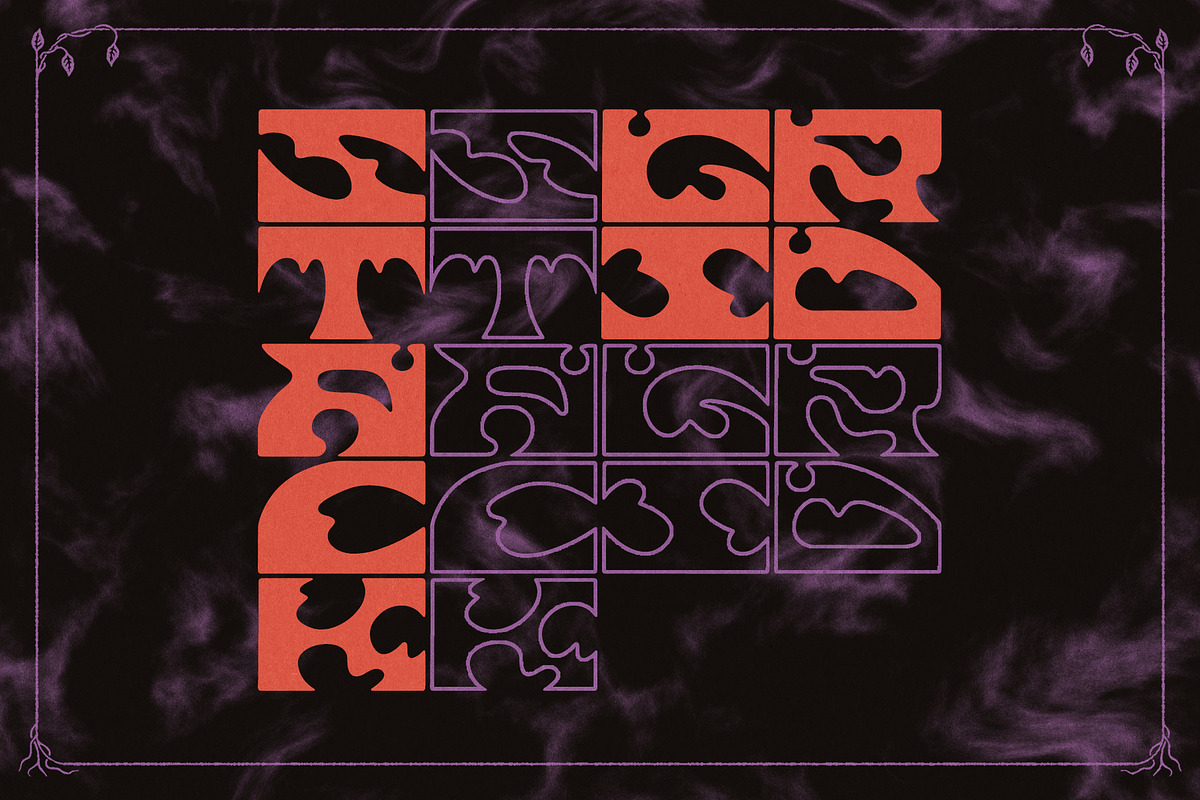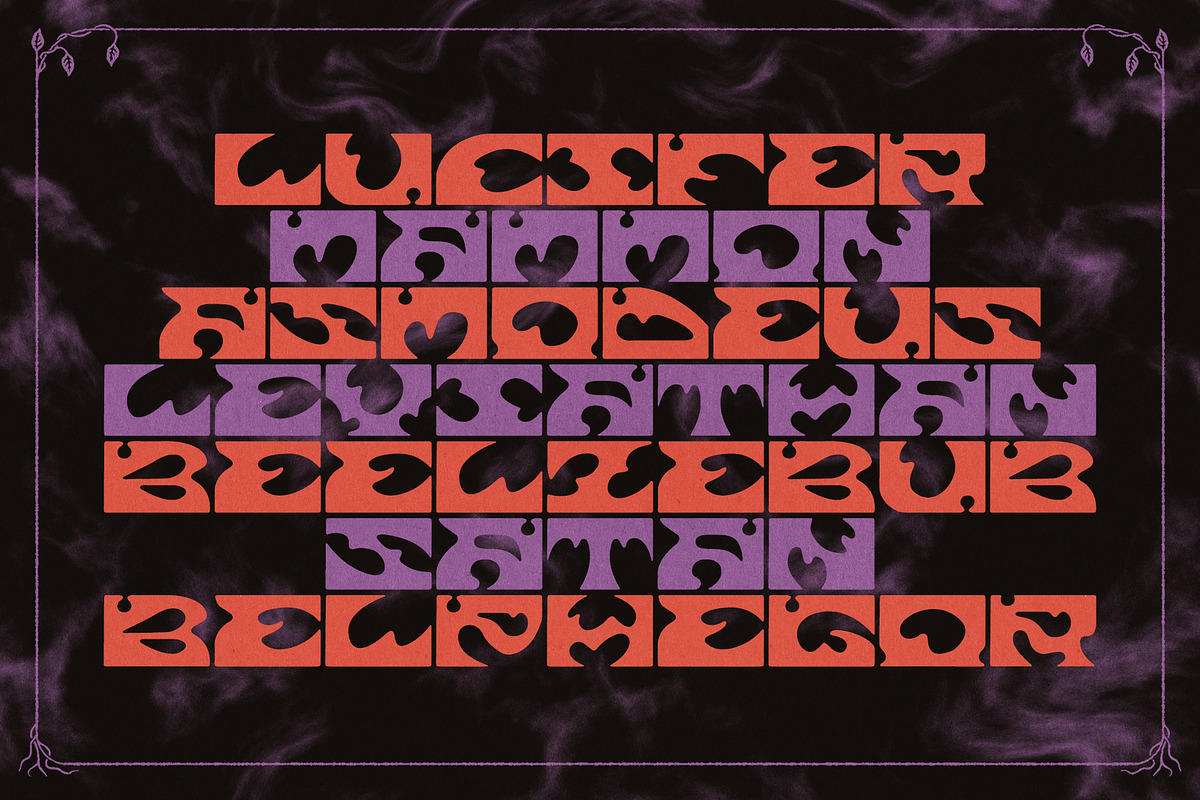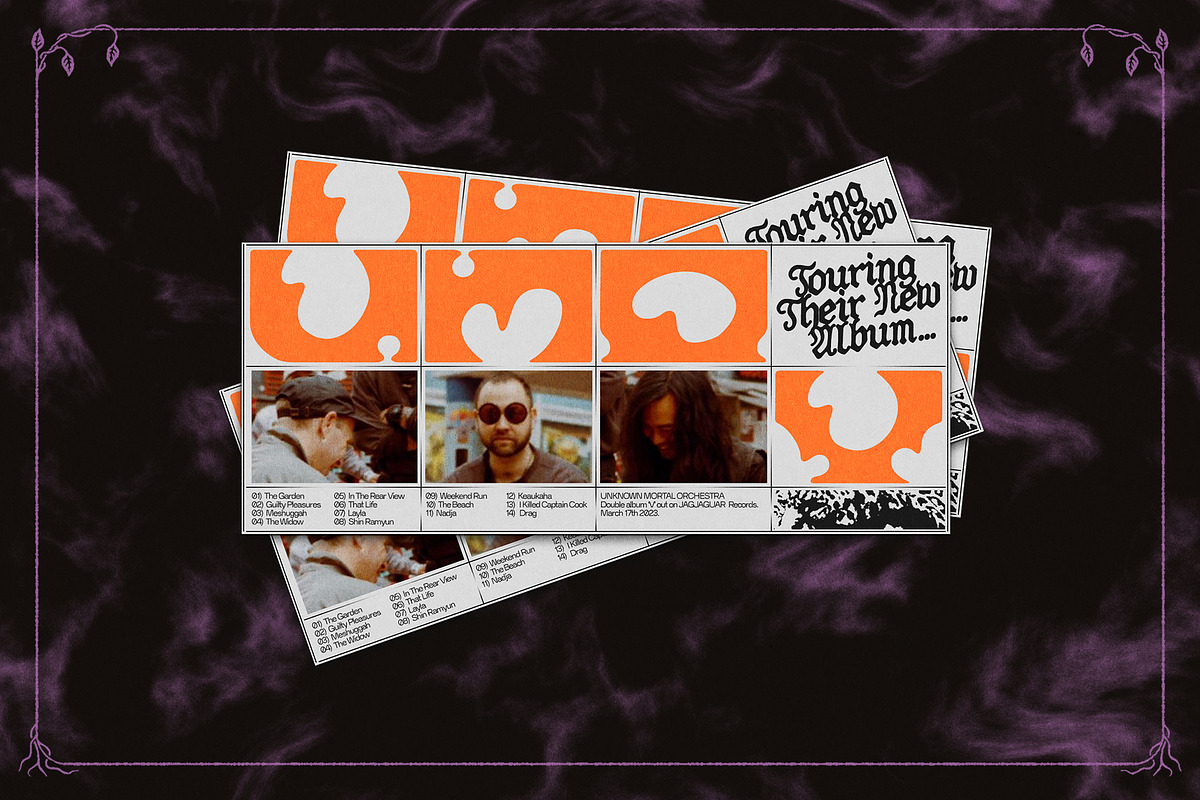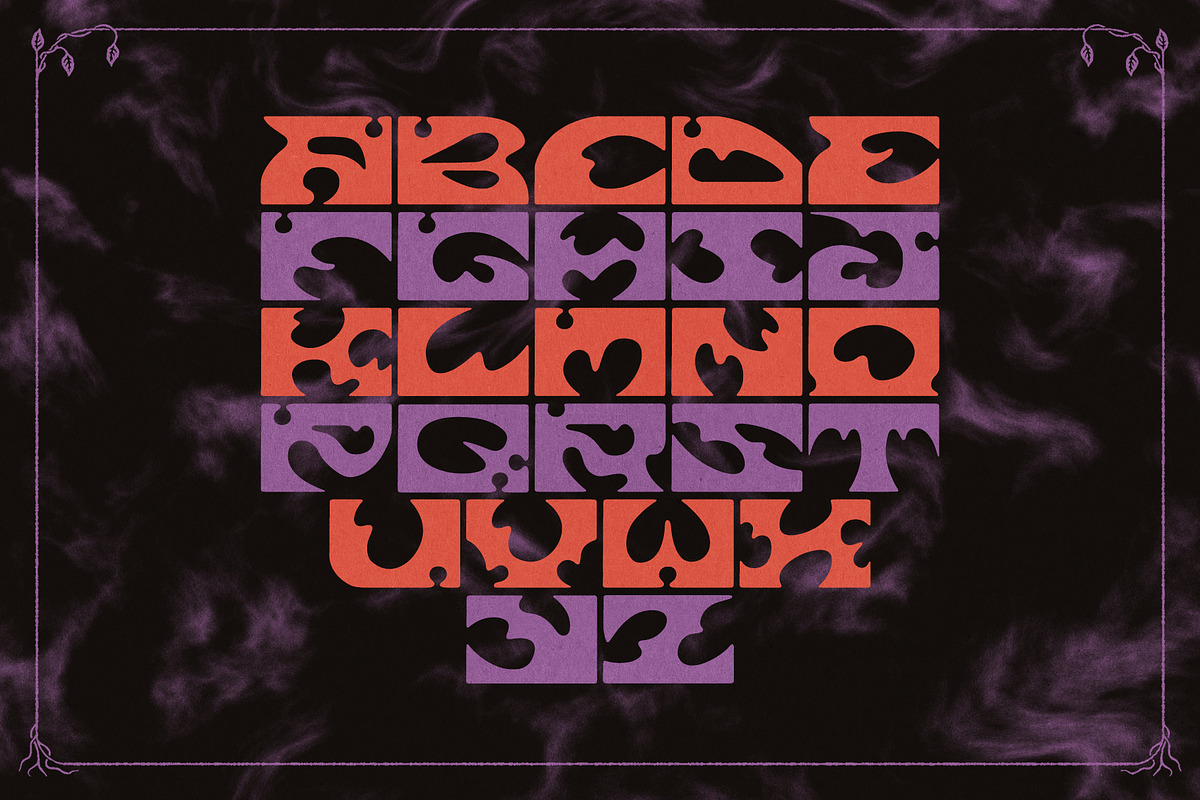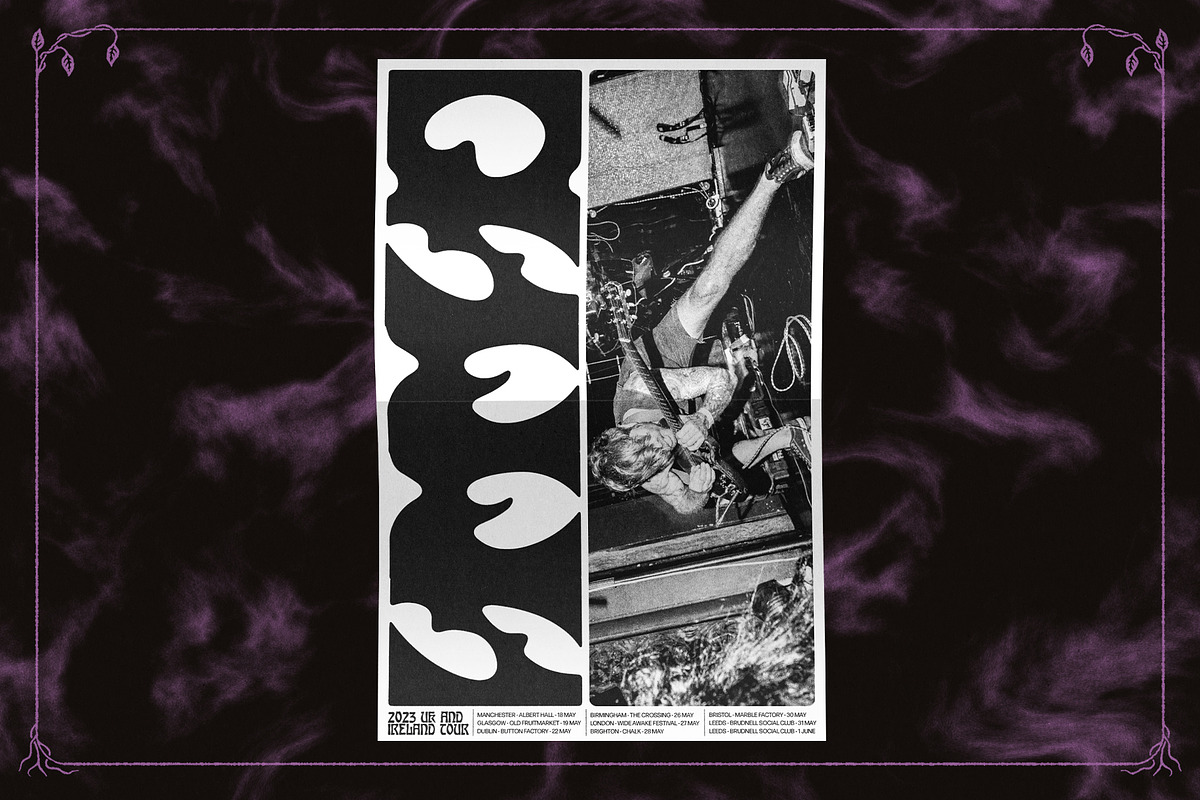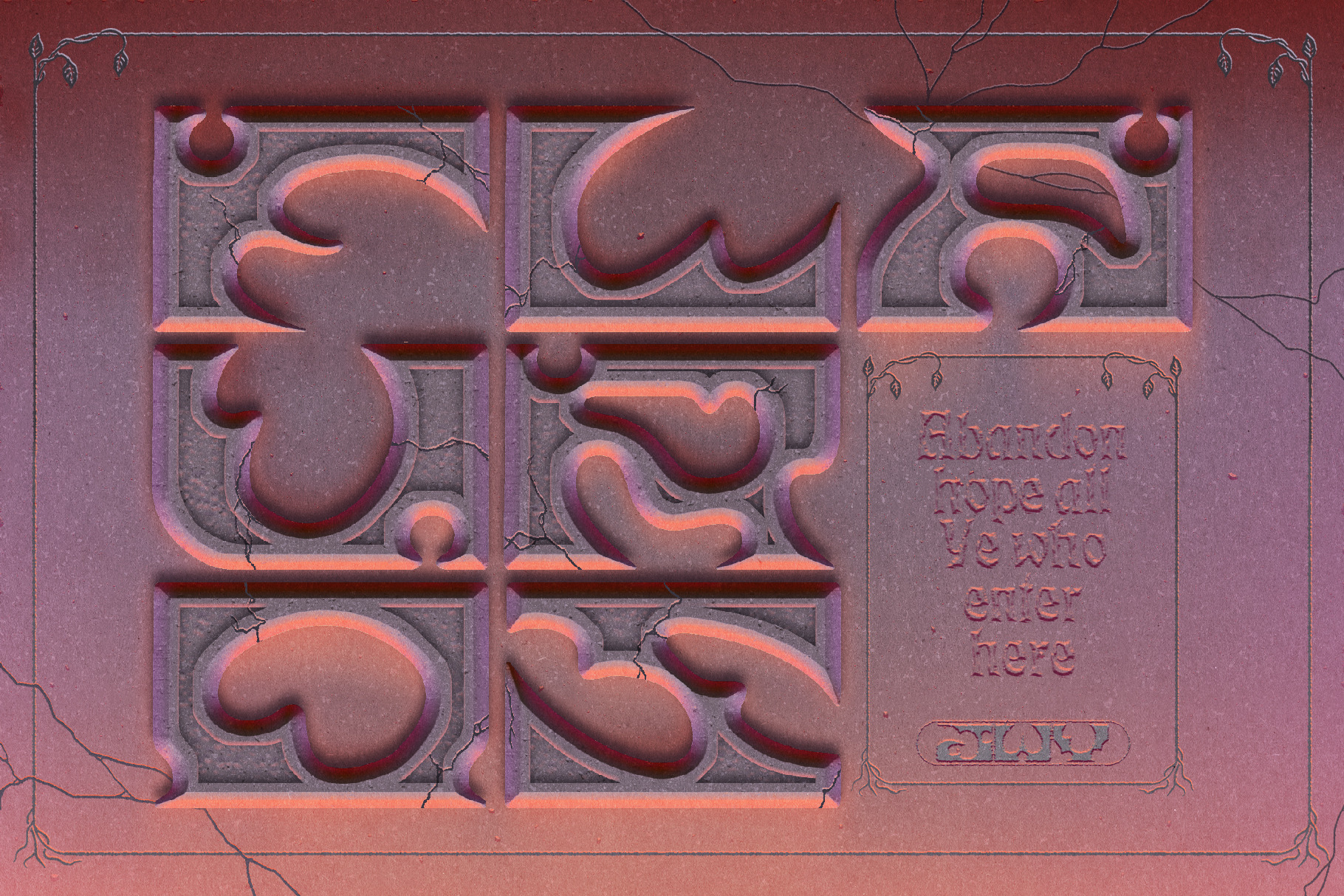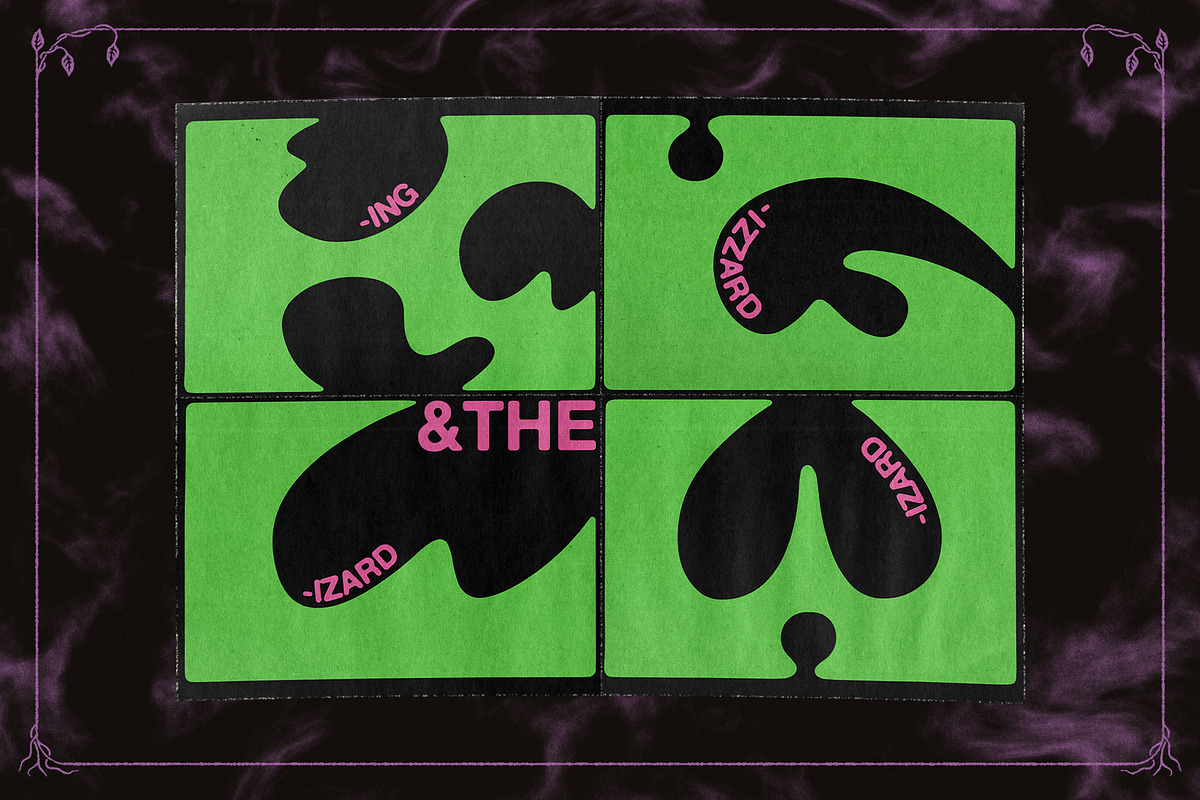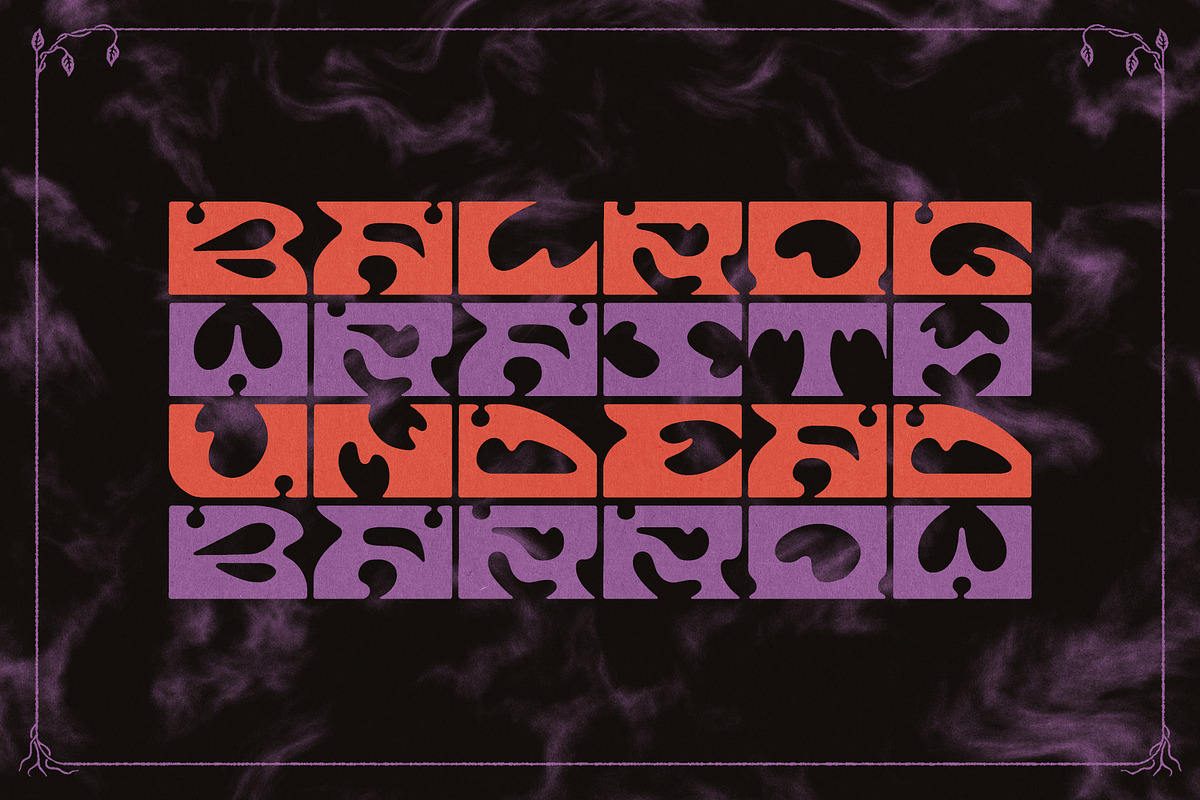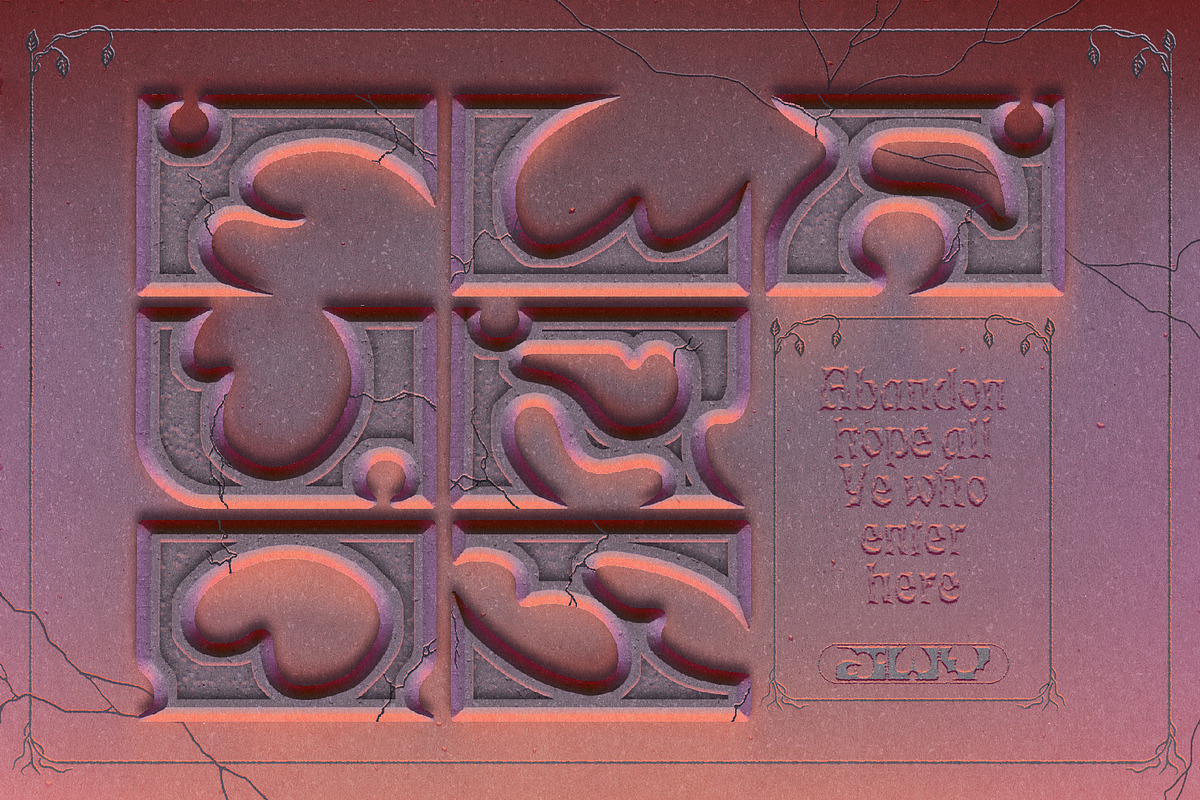
JWV - FLAUROS - Psych display font
FLAUROS is a sinister psychedelic typeface inspired by 19th century Art Nouveau type and the 1960's poster designs that repurposed them and brought them back into popularity.
FLAUROS is made up of 26 characters, equally spaced including the 'space' which is the same width as the characters, making it effortless to stack and grid the font.
The font will be gradually updated with more characters over time.
A Duke of Hell, a Demon, Flauros can be called upon by a mortal when they want to exact revenge upon another Demon.